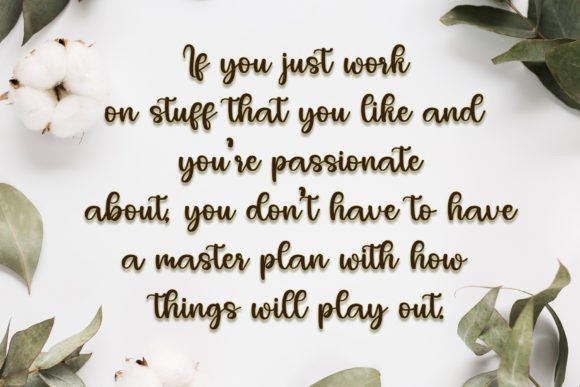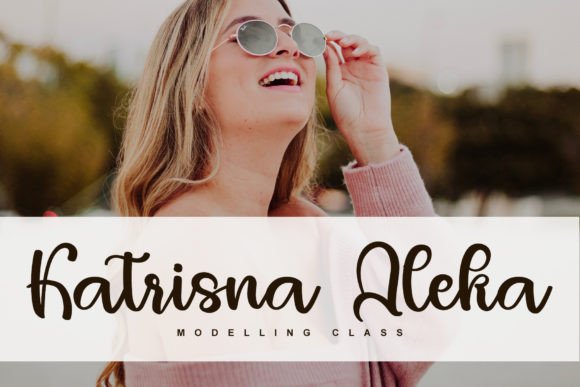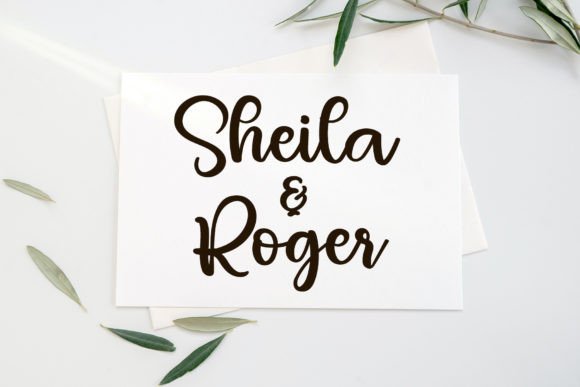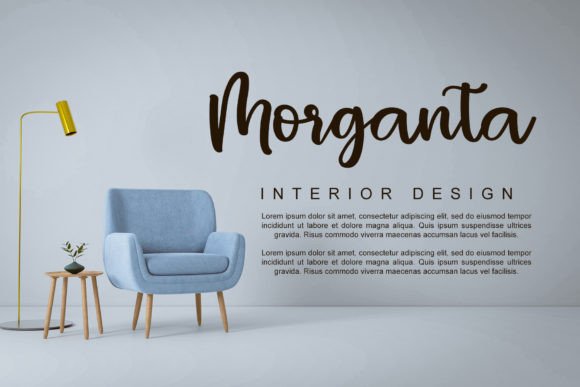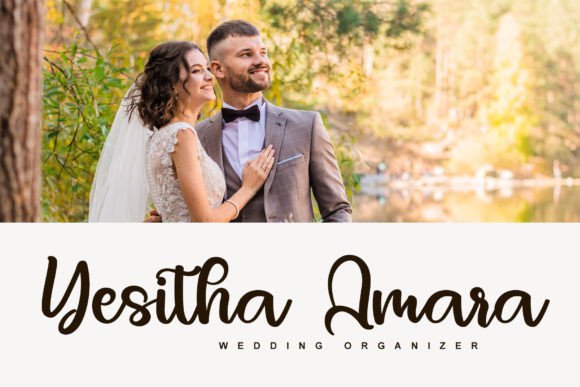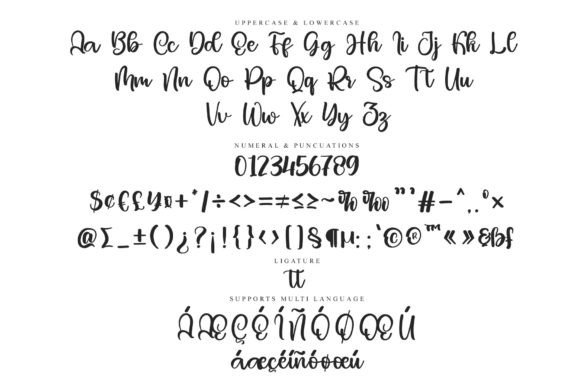
Unlock the Magic of Artistic Design
Have you ever stared at a blank canvas, wondering where to start with your next creative project? The blank page can be daunting, but what if you had the perfect tool to spark your imagination? For designers and artists, the right font can be the difference between a mediocre design and a masterpiece.
Enter Artistic Font, a magical handwritten font designed to add a touch of elegance to your designs. Whether you’re creating Instagram-worthy graphics, calligraphy scripts for DIY projects, or simply want to give your brand a unique voice, this font is the perfect companion. With its versatility and sophistication, Artistic Font is a valuable asset for any designer looking to elevate their work and stand out from the crowd.
Key Features of Artistic Font
- Unique Characteristics: Artistic Font features a unique blend of handwritten and brush script styles, with intricate details and flourishes.
Artistic Font Review
As a designer, I’m always on the lookout for fonts that can add a touch of personality to a project. The Artistic Font is one such font that caught my attention, and I’m excited to share my thoughts on it.
- The Artistic Font has a unique, hand-drawn feel that’s perfect for projects that need a touch of whimsy.
- The font is highly customizable, with a wide range of style options and sizes to choose from.
- The font is also highly legible, making it a great choice for body text or headlines.
- The font can be a bit overwhelming if used in large quantities, so it’s best to use it sparingly.
- The font may not be suitable for formal or corporate projects, as it has a more playful tone.
Overall, I think the Artistic Font is a great addition to any designer’s toolkit. While it may have some limitations, its unique style and customization options make it a versatile choice for a wide range of projects. With a bit of creative restraint, the Artistic Font can add a touch of personality and whimsy to even the most mundane designs.
Artistic Font is ideal for creating unique and eye-catching designs, such as:
– Titles and headings
– Quotes and captions
– Infographics and charts